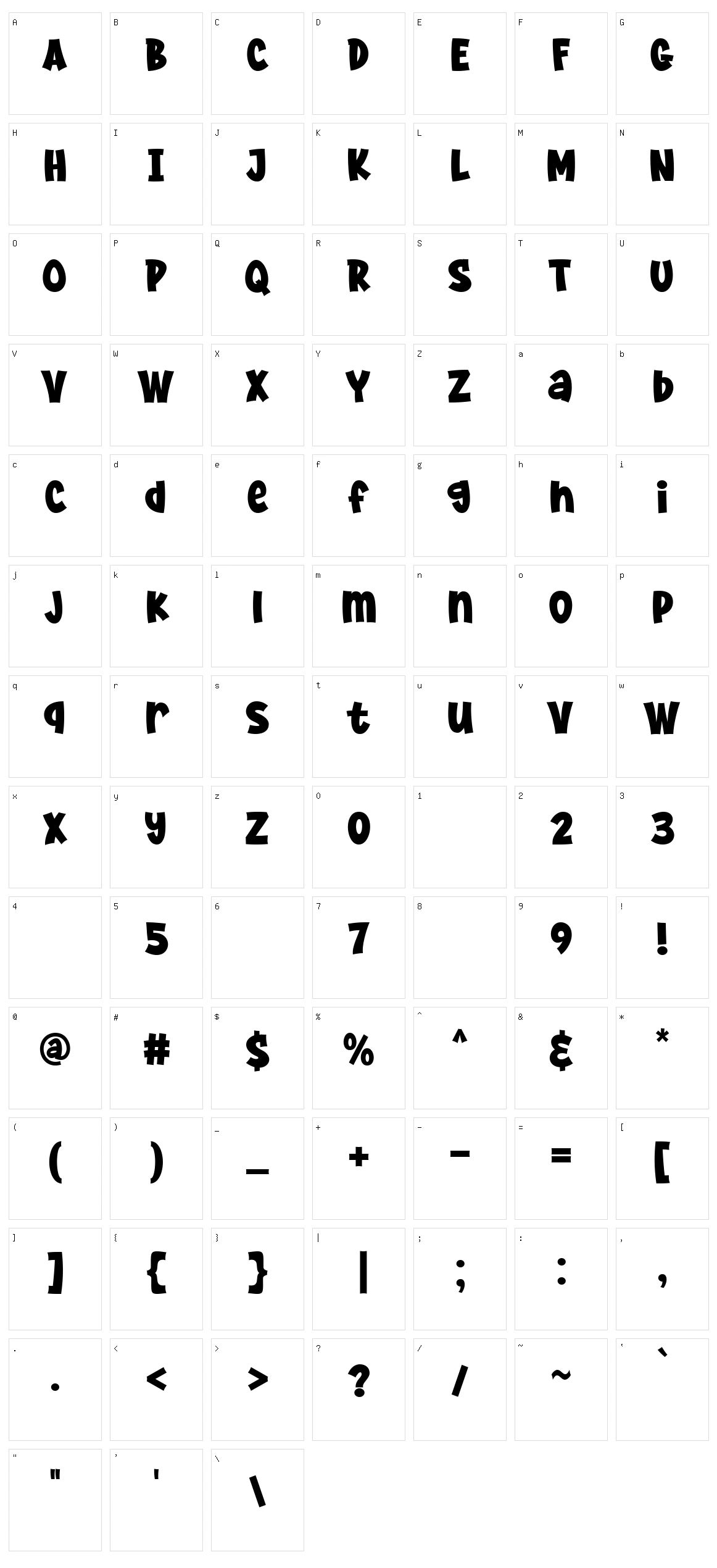
Introducing Super Potato: a font so fun, it's practically spudtacular! Imagine a playful blend of fancy dandies and mischievous cartoon characters, all dressed up in spud suits and ready to boogie.